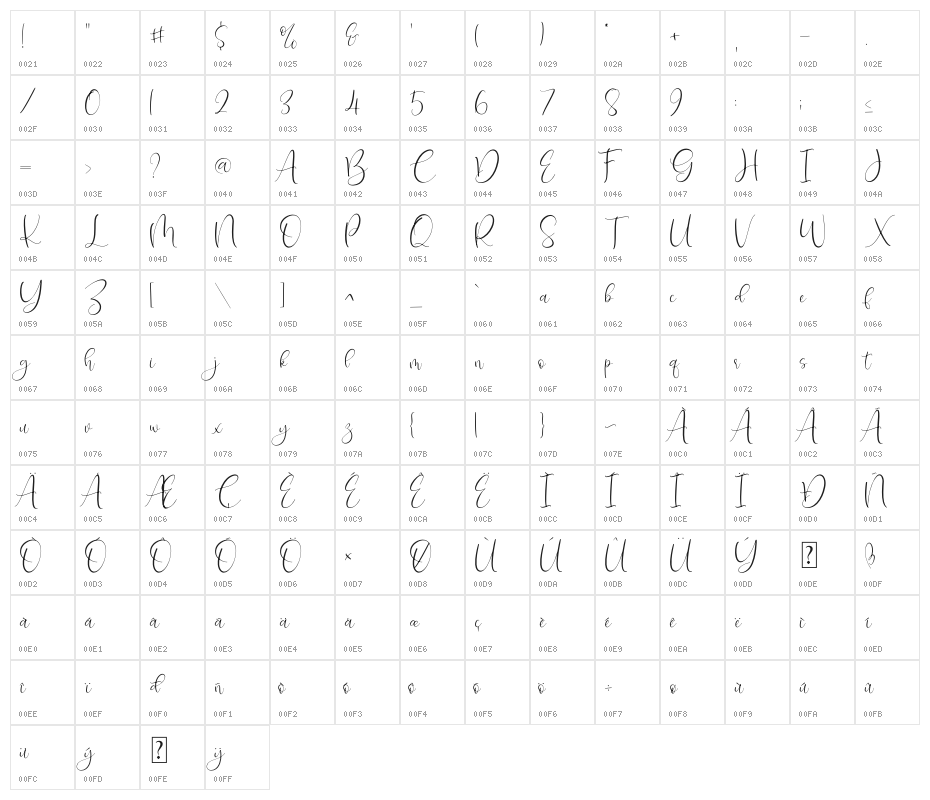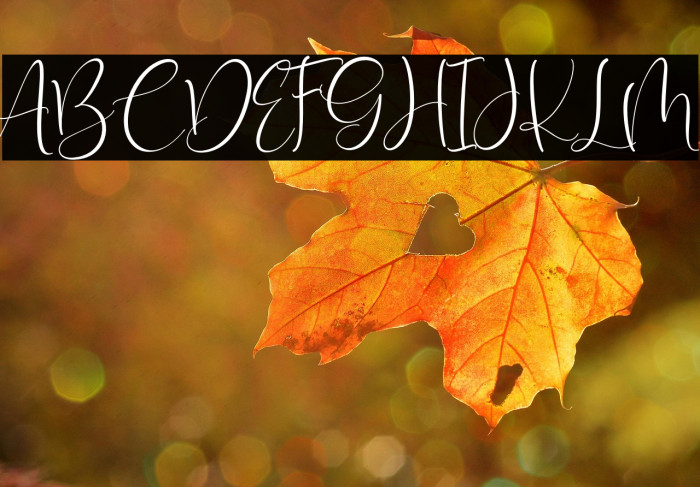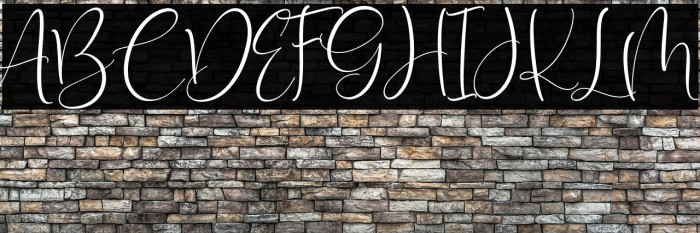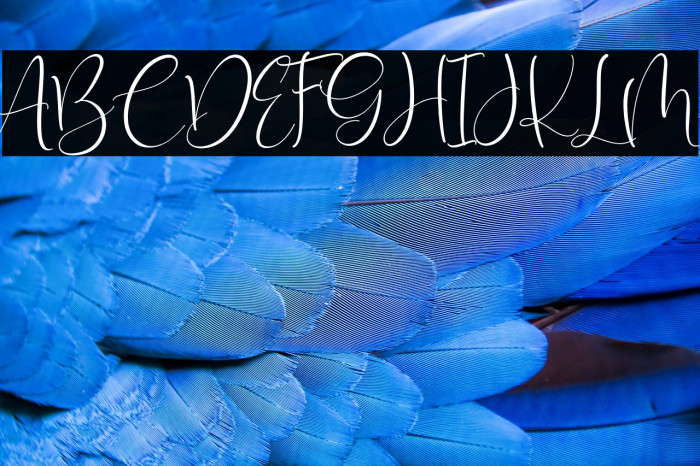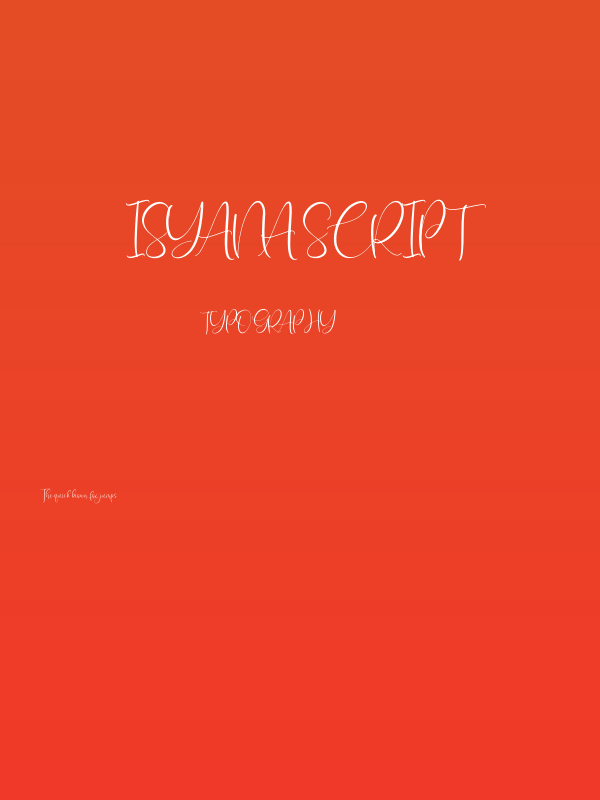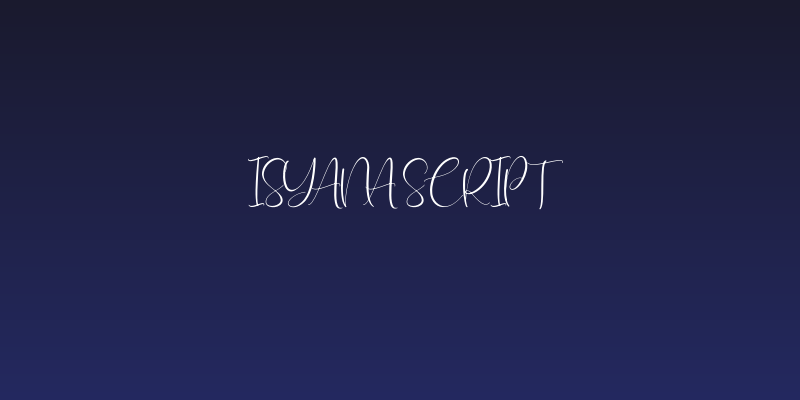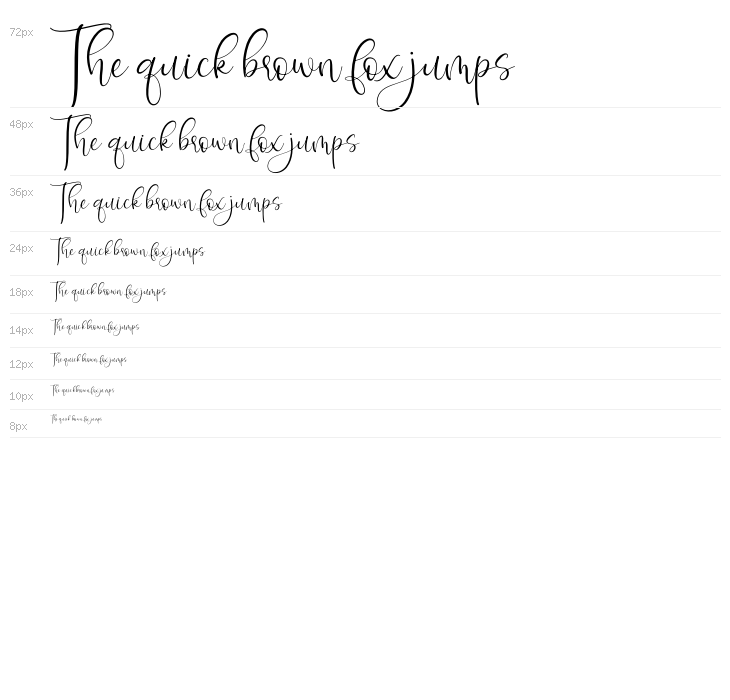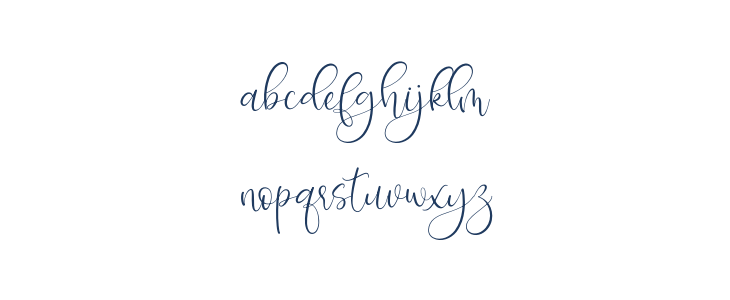
Isyana Script Font
Isyana Script Description
This elegant script font features flowing, interconnected letters with a graceful and sophisticated appearance. The uppercase letters are tall and slender, with sweeping curves and flourishes that add a touch of drama and elegance. The lowercase letters maintain a consistent style, with smooth transitions and a slightly more compact form. The numerals are stylish and maintain the same flowing aesthetic, making them suitable for decorative purposes. Special characters are thoughtfully designed to match the overall script style, ensuring a cohesive look throughout. This font exudes a sense of luxury and refinement, making it ideal for formal invitations, branding, and other creative projects that require a touch of elegance.
| Overall Style | Elegant |
| Use Case | Logos, Invitations, Decorative text |
| Proposed Projects | Ideal for wedding invitations, luxury branding, elegant stationery, and artistic projects. |